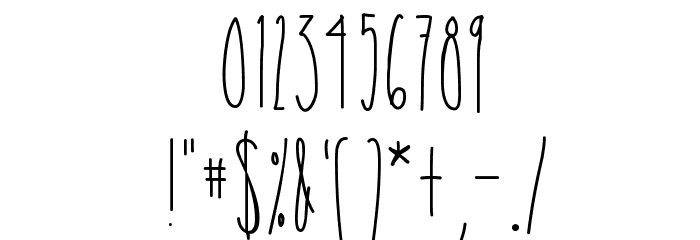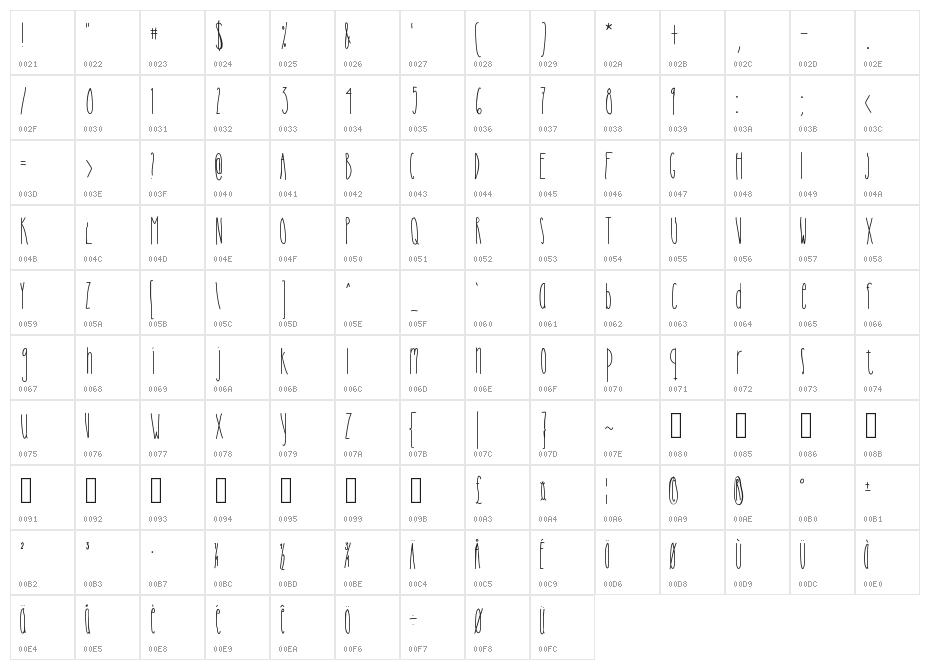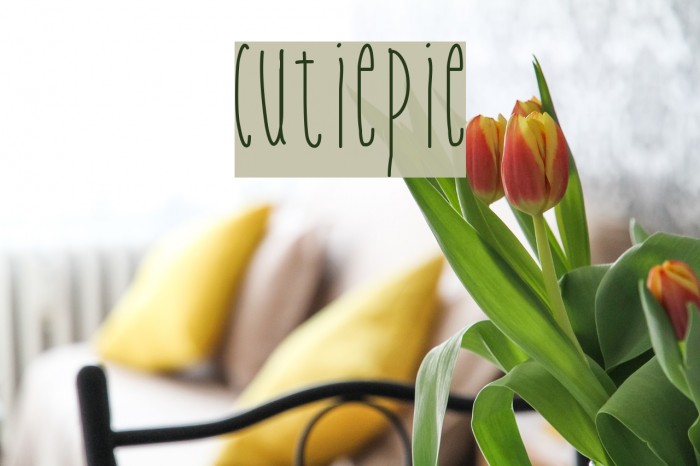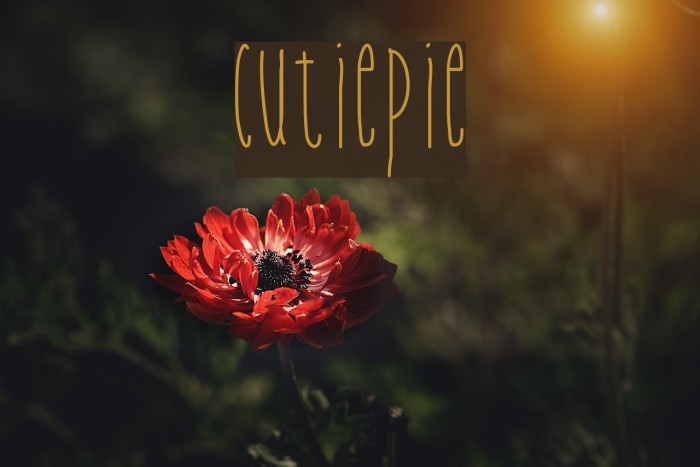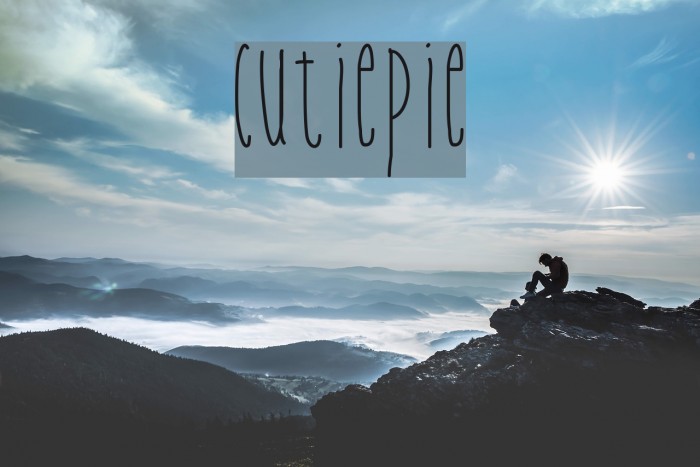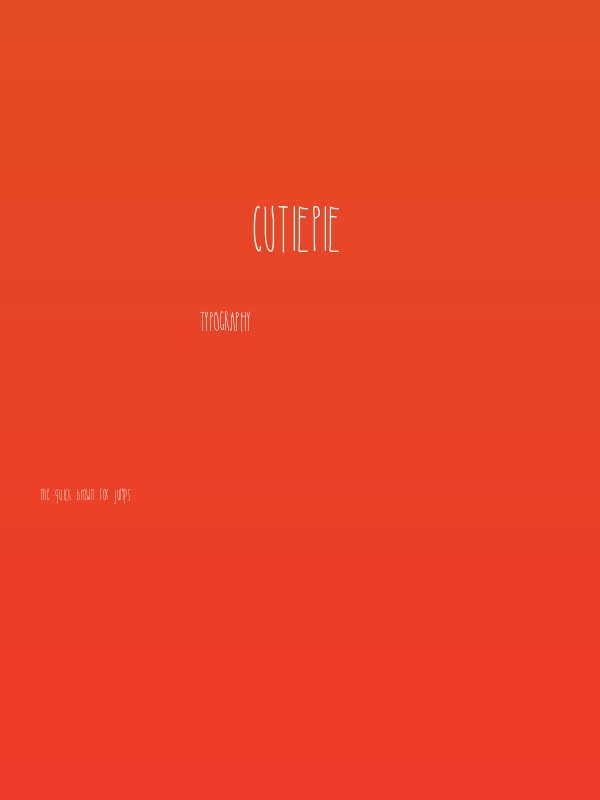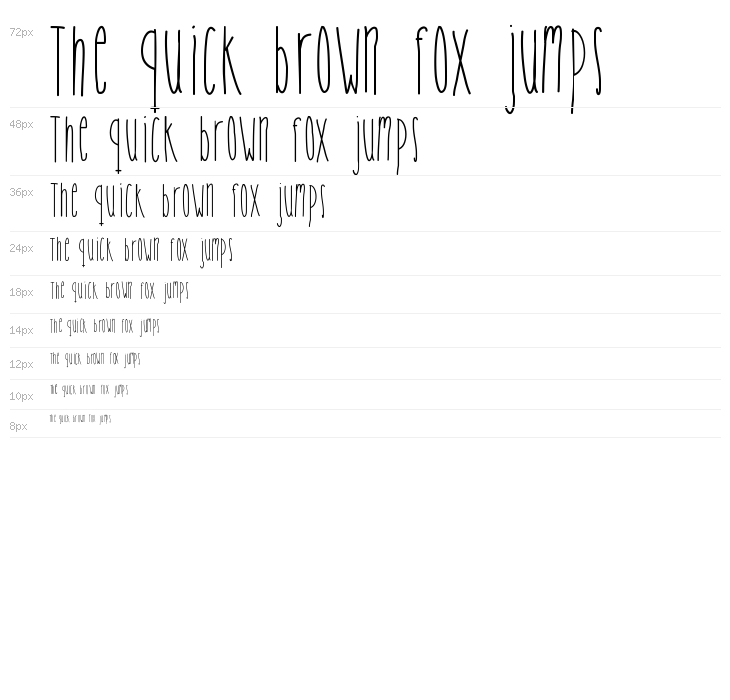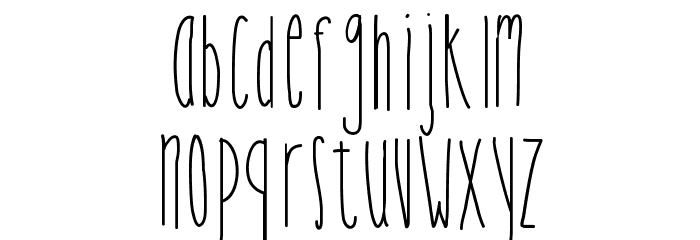
Cutiepie Font
Cutiepie Description
This font features a playful and whimsical design with tall, narrow characters. The strokes are thin and consistent, giving it a delicate and airy appearance. The uppercase and lowercase letters maintain a uniform height, enhancing its modern and clean look. The numbers and special characters are designed to match the overall style, ensuring a cohesive appearance across all text. This font's unique charm makes it suitable for creative and informal projects.
| Overall Style | Whimsical |
| Proposed Projects | Ideal for greeting cards, children's books, playful branding, and social media graphics. |